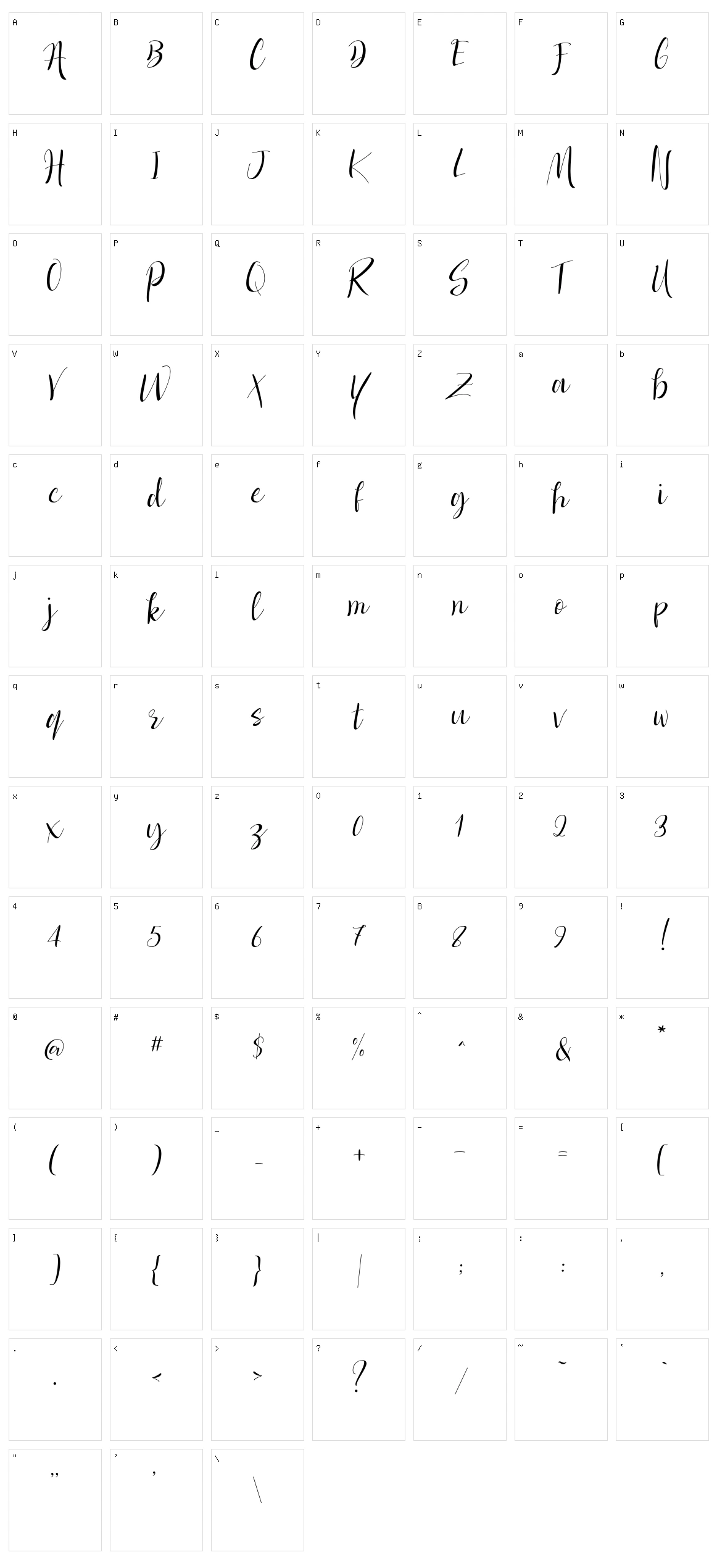
The free font Dolcetto is carefully designed by River Side, showcasing a thoughtful balance of creativity and usability and falls under the Script font style. When you download the ZIP file, it contains only 50.67 KB of font files, making it lightweight and quick to download. Please review the license details below to understand permitted usage and distribution rights. If license information is not available, we recommend using this font for personal projects only or contacting the author directly for commercial usage permissions.